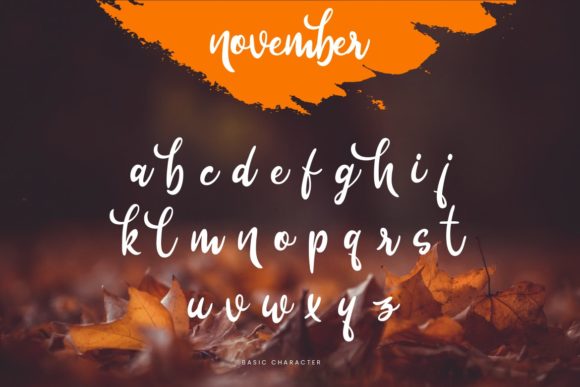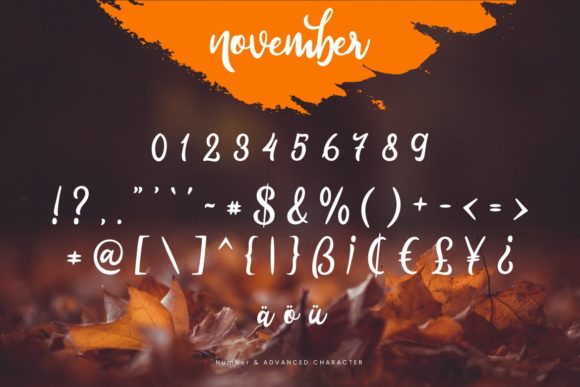
About November Font
“November” emerges as a gracefully flowing handwritten font, characterized by an elegant touch that renders it a perfect fit for your most beloved projects. This font exudes an air of sophistication that remains both distinctive and timeless, inviting you to immerse yourself in its allure and employ it to craft designs that truly stand out.
What sets “November” apart is its seamless fusion of fluidity and elegance. Each meticulously crafted letter exudes an aura of refined beauty, reminiscent of calligraphy executed with meticulous attention. With every stroke, “November” weaves a narrative of sophistication and style that transcends the boundaries of time.
Envision the transformative influence of “November” across a plethora of designs—an exquisite wedding invitation adorned with the font’s elegant script, setting the stage for an enchanting celebration. Picture the font gracing a high-end luxury brand’s logo, encapsulating the essence of grace and opulence in each character. The font’s versatility elegantly extends across diverse applications, infusing your projects with an element of enduring artistry.
The natural allure of “November” is irresistibly captivating, akin to a graceful dance across the page. Its letters flow smoothly, imparting a sense of grandeur that elevates the overall design. The font radiates an aura of timeless charm, extending an invitation to creators to embark on a journey of creative exploration.
Designers and enthusiasts alike are sure to be captivated by the enchanting allure of “November.” Its adaptability transcends conventions, making it an essential tool for various projects. Beyond being a mere font, “November” evolves into a medium of expression, empowering creators to infuse their work with a touch of timeless sophistication.
In essence, “November” stands as a testament to the artistry that typography can encompass. Its flowing handwritten charm beckons you to embrace the realm of design, transforming your ideas into tangible creations that embody enduring beauty. As you navigate the endless avenues of creativity, let “November” be your guiding light, leading you to craft designs that reflect the essence of elegance and create a lasting impact on every canvas, all while embracing the timeless allure of your creative imagination.